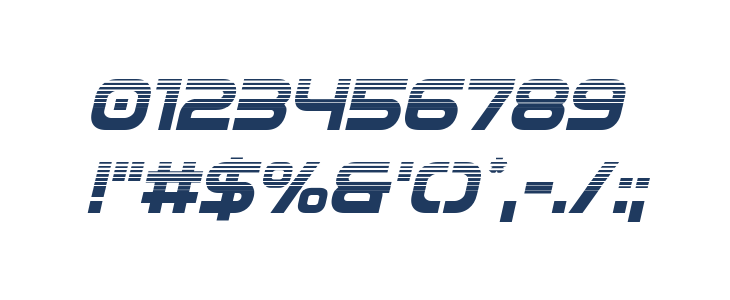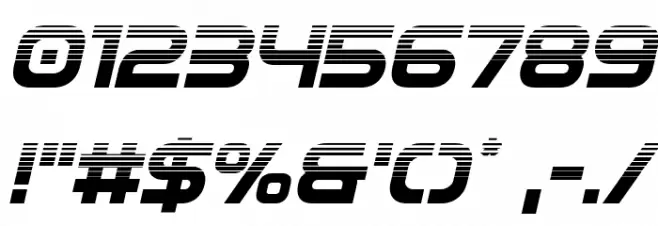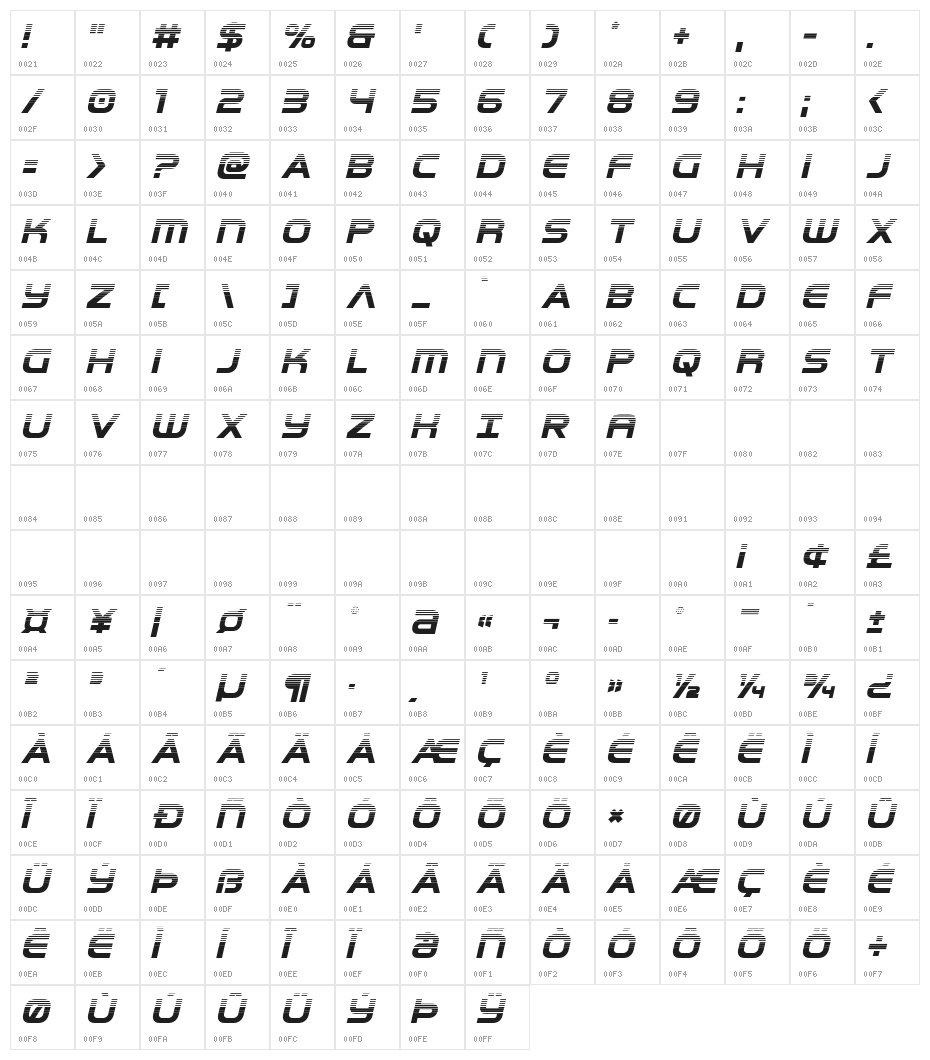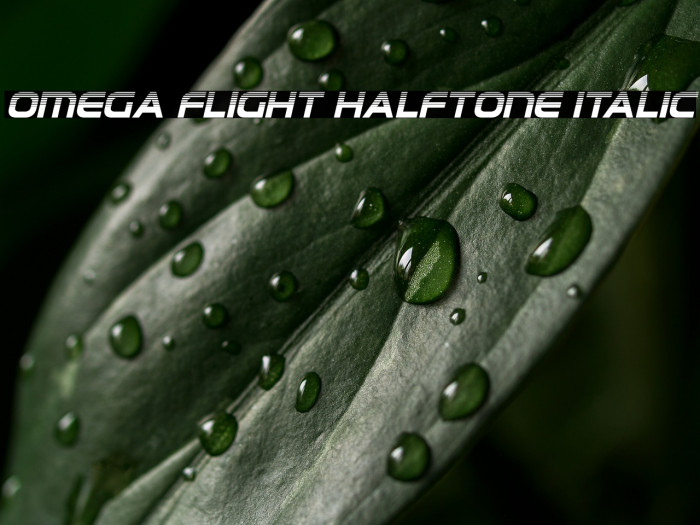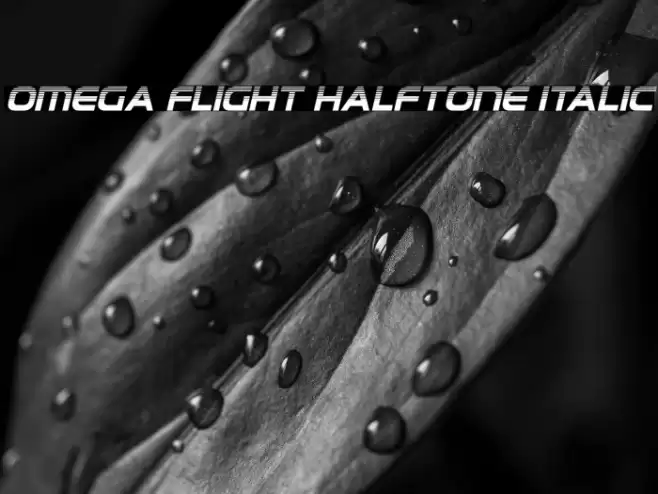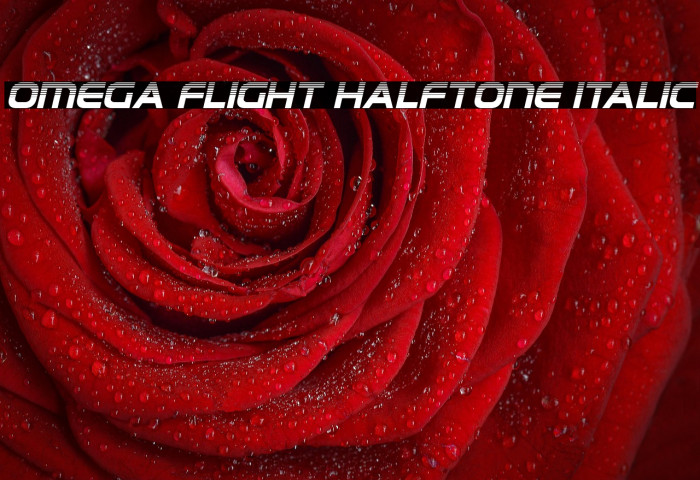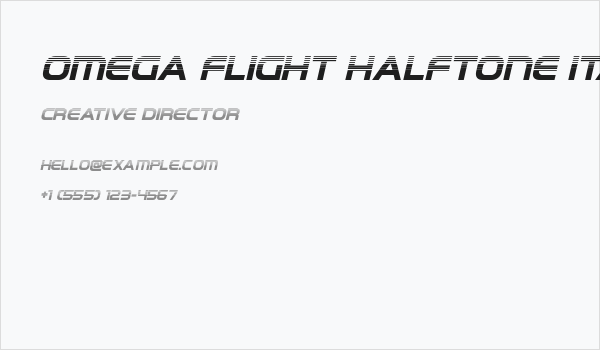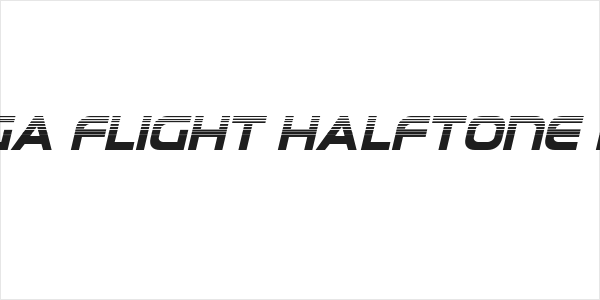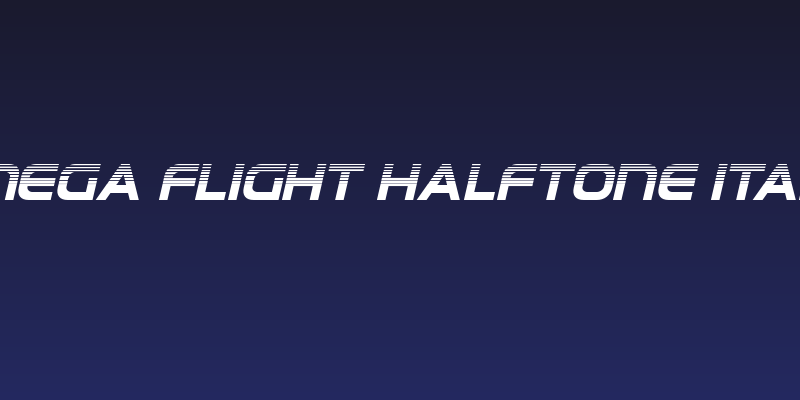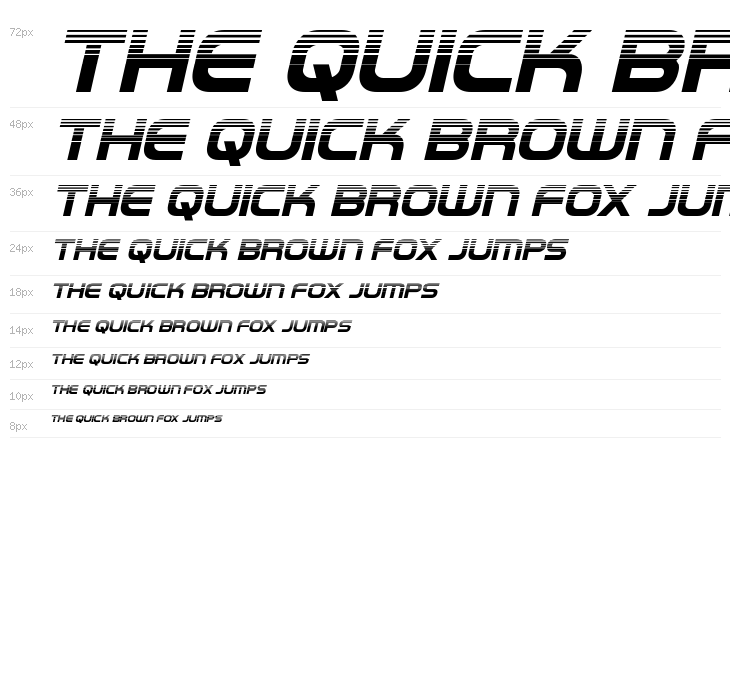
Omega Flight Halftone Italic Font
Omega Flight Halftone Italic Description
This font features a dynamic and futuristic design with a halftone effect that gives it a sense of motion and speed. The italicized style enhances its forward-leaning appearance, making it ideal for projects that require a modern and energetic look. The characters are bold and wide, with a unique striping pattern that adds depth and texture. The uppercase and lowercase letters maintain consistency in style, while the numerals and special characters complement the overall aesthetic. This font is perfect for creative projects that aim to capture attention and convey a sense of innovation.